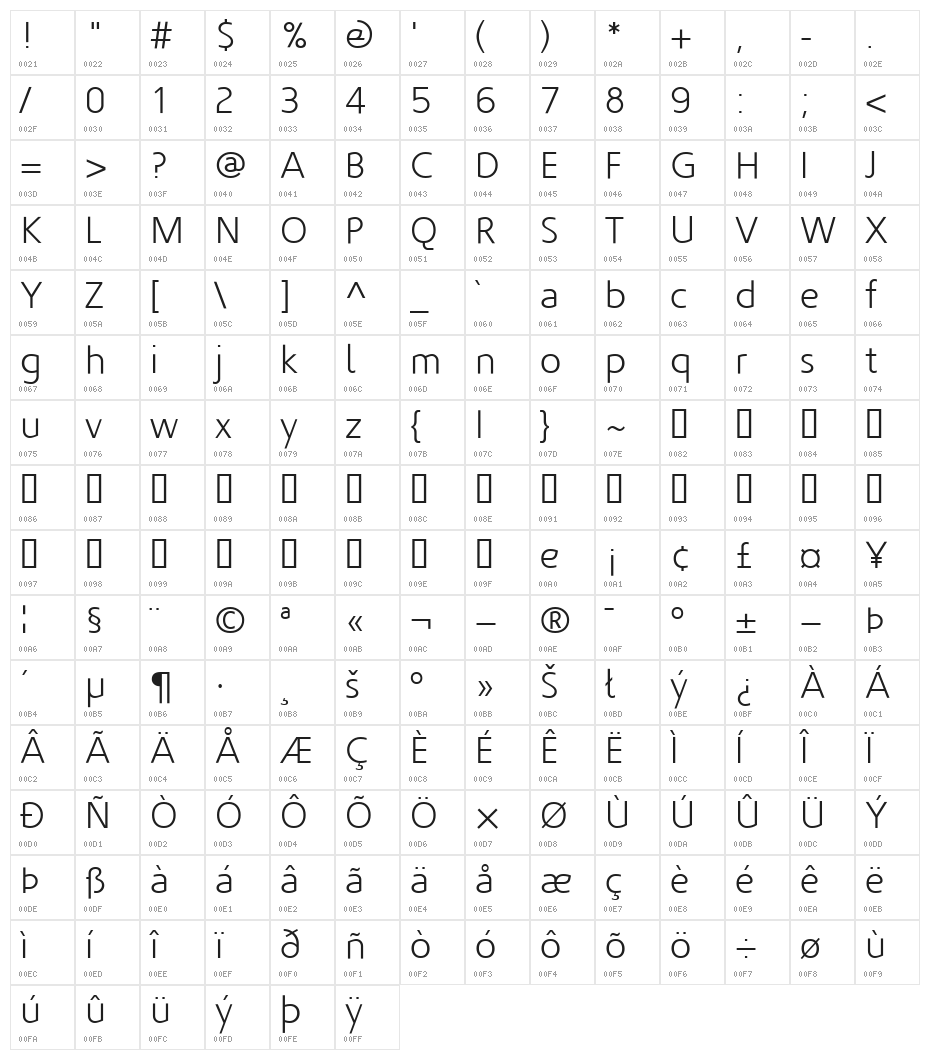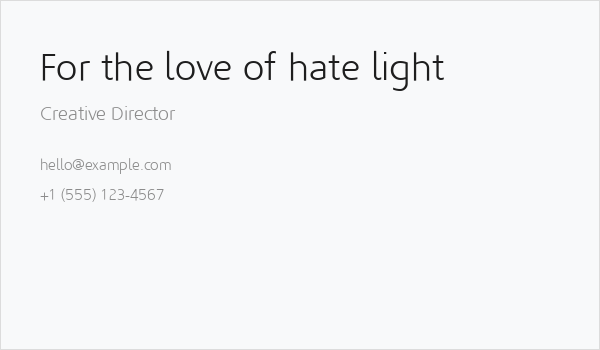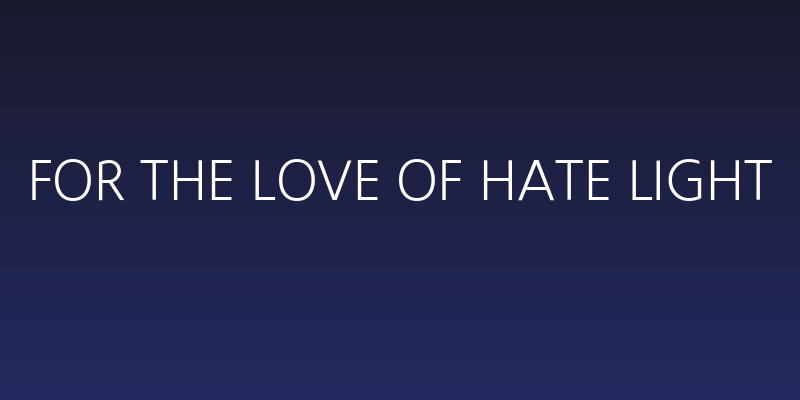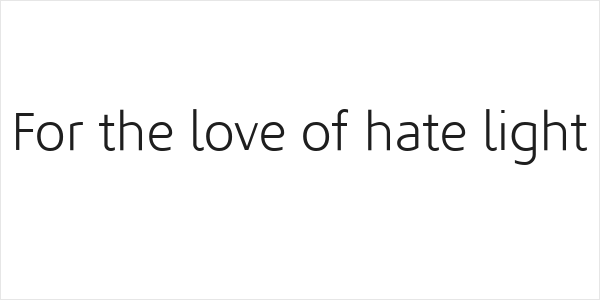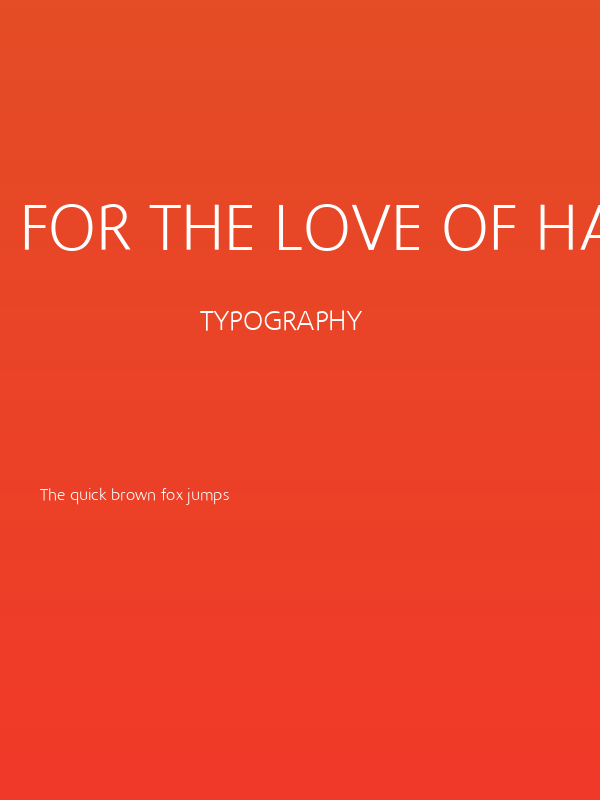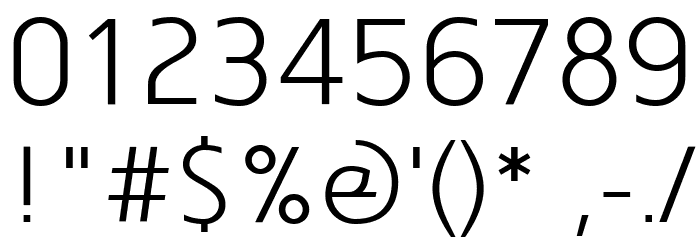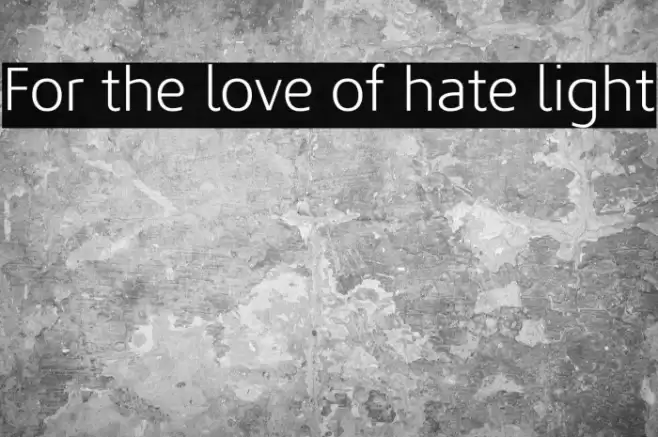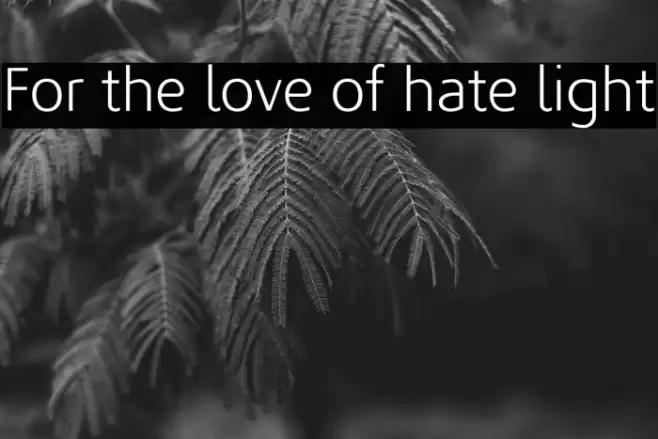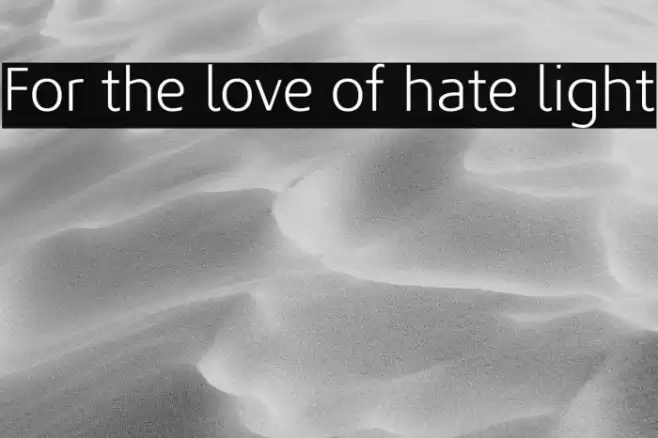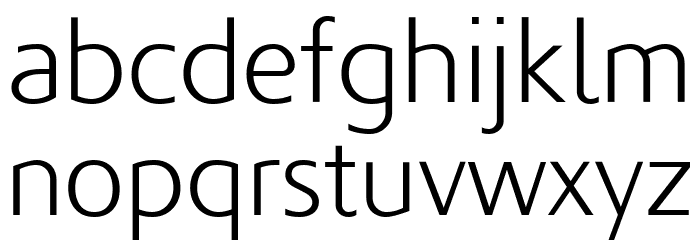
For the love of hate light Font
For the love of hate light Description
This font exhibits a clean and modern sans-serif style, characterized by its geometric shapes and uniform stroke widths. The uppercase letters are tall and slightly condensed, giving a sleek and professional appearance. The lowercase letters maintain a consistent height, contributing to the font's readability and balance. The numerals are clear and straightforward, matching the overall aesthetic of the alphabet. Special characters are well-integrated, maintaining the same line weight and style as the letters and numbers. This font's simplicity and clarity make it versatile for various design applications.
| Proposed Projects | Ideal for corporate branding, web design, and editorial layouts due to its clarity and modern appeal. |